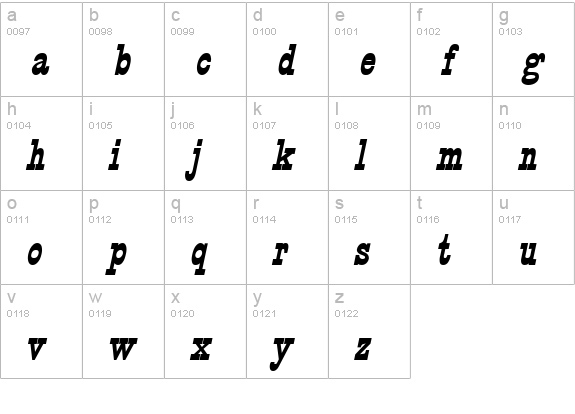
Circus Bold Italic Font Details
Circus Bold Italic is a strong, high-contrast, italic variant in the Circus typeface family \xE2\x80\x94 well suited to headlines, attention-grabbing titles, and strong calls-to-action.
Introducing Circus Bold Italic font, a dynamic and playful typeface that is sure to capture attention with its bold and italic design. This unique font exudes a sense of energy and excitement, making it perfect for projects that need a touch of fun and creativity. The Circus Bold Italic font is not only visually striking but also versatile, making it suitable for a wide range of design applications. Whether you're working on a poster, logo, or website, this font will add a touch of whimsy and charm to your project. Best of all, Circus Bold Italic font is available for free download at FontsMarket.com. Now you can add this eye-catching font to your collection without breaking the bank. Don't miss out on the opportunity to enhance your designs with the bold and playful aesthetic of Circus Bold Italic font. Download it today and let your creativity soar!